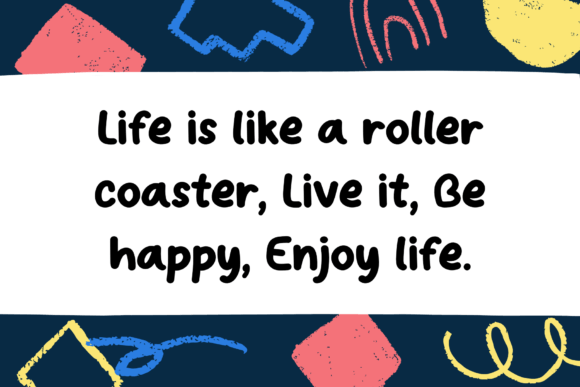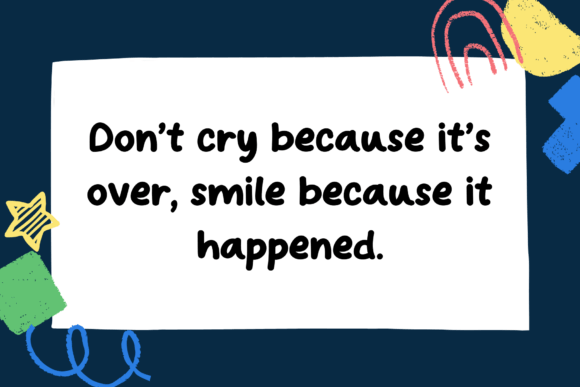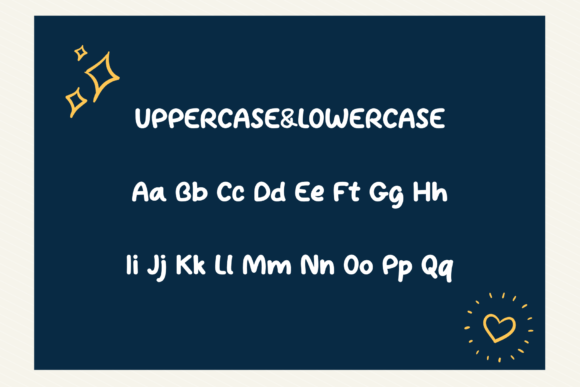
Introduction to Outstanding Teacher Font
Do you remember the feeling of excitement when you first held a pencil and began to create something from scratch? The blank page, the endless possibilities, and the thrill of bringing your imagination to life? For designers, that moment never truly fades away. It’s the spark that drives us to create something new, something that leaves a lasting impression. Whether it’s a lesson plan, a presentation, or a student assignment, the right font can make all the difference.
That’s where the Outstanding Teacher Font comes in – a high-quality, free download that’s perfect for any educational project. With its unique, handwritten style, this design resource is sure to add a personal touch to your creative project. And with a transparent background, you can easily place it over any image or design element, making it a versatile addition to your design toolkit.
Key Features of Outstanding Teacher Font
- High-quality design resource ideal for creative projects, educational materials, and teacher-themed artwork.
- Unique, custom-designed characters with transparent background, allowing for seamless integration with any design.
- Perfect for use in educational settings, such as lesson plans, teacher certificates, and classroom decorations.
- Size: Includes 100 characters, including uppercase and lowercase letters, numbers, and special characters.
- Designed to be versatile and adaptable for use in digital and print-based creative projects.
Honest Review: Outstanding Teacher Font
As a designer, I’m always on the lookout for high-quality fonts to elevate my creative projects. The Outstanding Teacher Font caught my eye, and I decided to give it a try. Here’s my honest review.
- ✨ The transparent background allows for seamless integration into any design project.
- ✨ The font is designed specifically for teachers, which adds a personal touch to any educational design project.
- ⚠️ The font is only available in a limited number of styles and weights.
- ⚠️ Some users may find the font’s simplicity too plain for certain design projects.
Overall, I’m impressed with the Outstanding Teacher Font. It’s a great resource for designers working on educational projects, and its free download makes it an excellent choice for beginners. While it has some limitations, the font’s high quality and transparent background make it a solid addition to any design library.
The Outstanding Teacher Font is a high-quality design resource ideal for creating engaging educational materials. This font is available for free download, allowing you to incorporate it into your creative project.
Tips for Getting the Most Out of Outstanding Teacher Font
Use the Outstanding Teacher Font on a transparent background to create a visually appealing design. Experiment with different font sizes and styles to add emphasis to your text.
The Outstanding Teacher Font is ideal for creating educational materials, such as lesson plans, worksheets, and presentations. It can also be used in other creative projects, such as infographics and brochures.